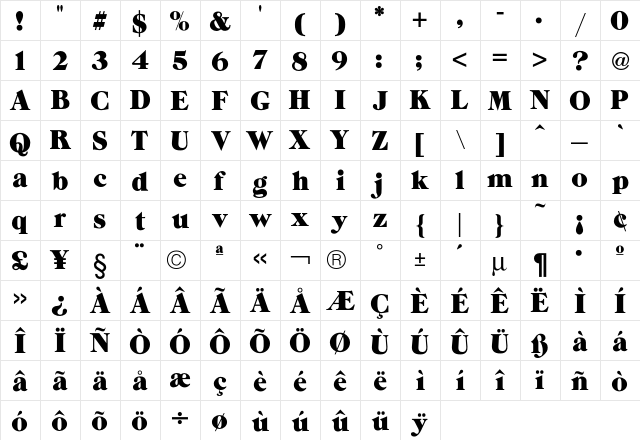
Grouch Regular
Design Context for Grouch Typeface
Grouch is a composed and adaptable typeface that performs quietly and consistently across a wide range of design contexts.